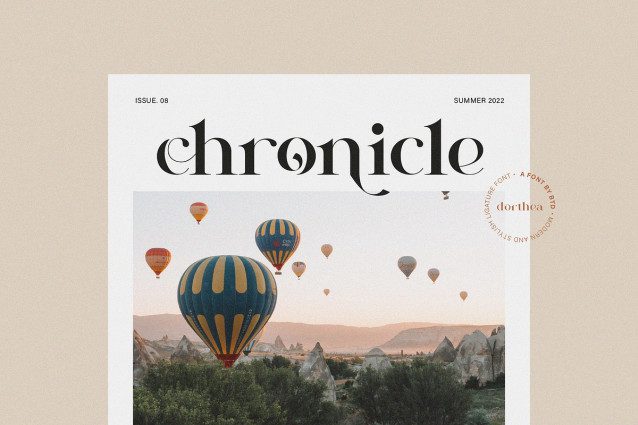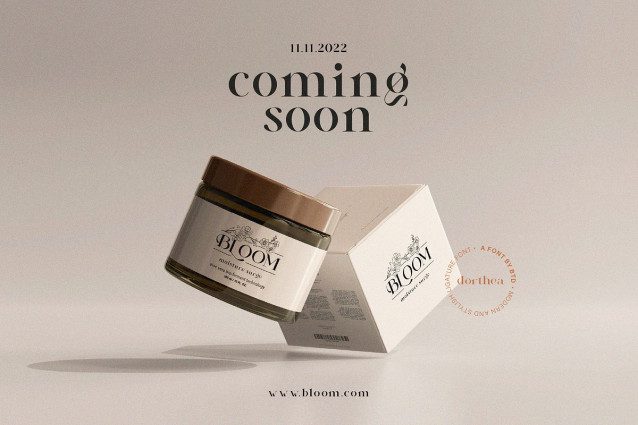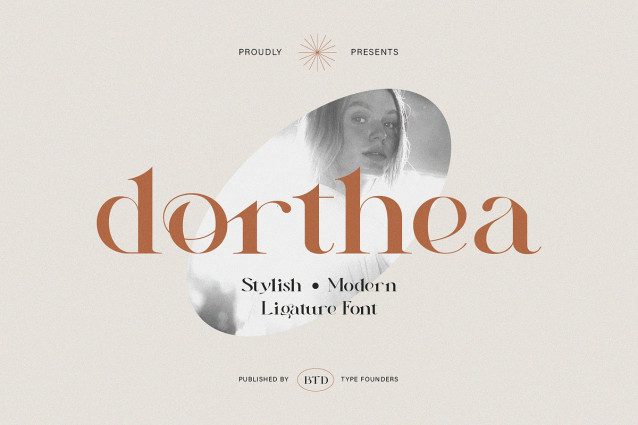
Dorthea Font
Dorthea Font a modern ligature serif font with elegant style. It’s an easy way & perfect choice to make your design projects; logo, branding, invitation, social media ads & website have classy looks.
Powered with ligatures that automatically change some of your characters into new form if they type together, magic! It also came with alternate characters to make everything more blended.